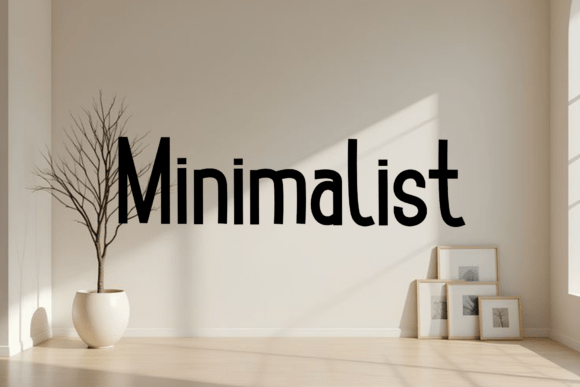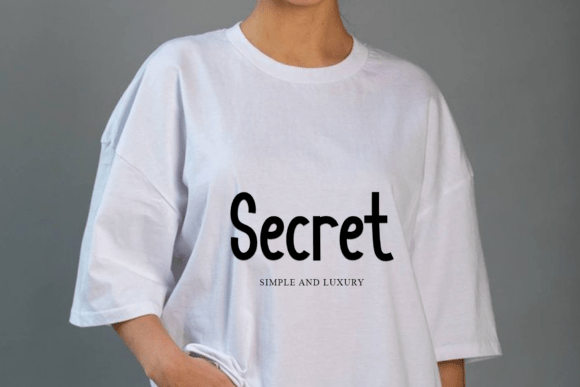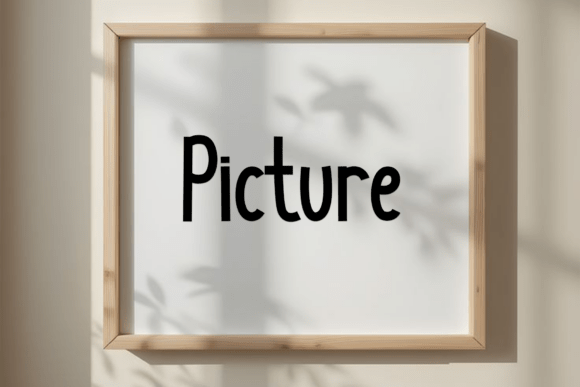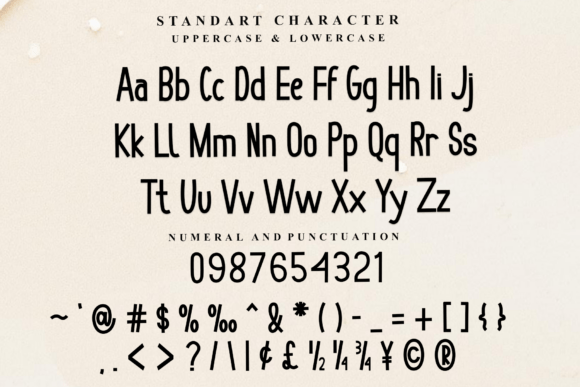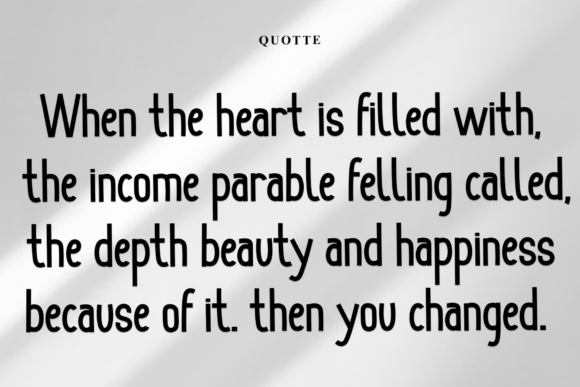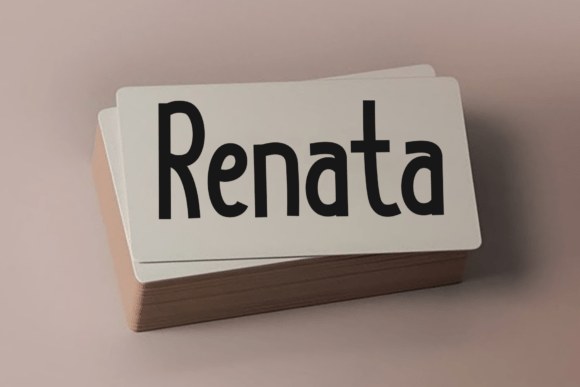
Introduction to Snappy Doodle Font
As a designer, there’s nothing quite like the thrill of bringing a creative project to life. You’re browsing through a font library, searching for the perfect match to convey the tone and personality of your design. And then, you stumble upon it – the one font that makes everything click. For many, that font is the Snappy Doodle Font, a delightful and charming typeface that adds a touch of warmth and friendliness to any design.
With its round, playful strokes and hand-drawn aesthetic, the Snappy Doodle Font is the perfect addition to any design resource. Whether you’re working on a free download or a paid project, this font is sure to bring a smile to your client’s face. Its versatility and high quality make it an invaluable asset for designers, allowing them to create high-quality designs with ease.
Key Features of Snappy Doodle Font
- Unique and playful design perfect for creative projects, such as children’s books, party invitations, and educational materials.
- Perfect for adding a touch of whimsy and personality to your design projects, from posters and flyers to social media graphics and more.
Honest Review: Snappy Doodle Font
I recently had the chance to work with the Snappy Doodle Font, and I must say it’s a unique and quirky addition to any design project. This font is perfect for those who want to add a touch of whimsy and playfulness to their creative work.
- ✨ High quality and crisp lettering, making it perfect for use on a variety of design mediums.
- ✨ The transparent background option allows for seamless integration into any design project, whether it’s a digital or print-based application.
- ⚠️ Limited font styles and variations, which may not be ideal for designers looking for a more extensive range of options.
Overall, the Snappy Doodle Font is a fun and creative addition to any design project. While it may have some limitations, its unique charm and high quality make it a worthwhile resource for designers looking to add a touch of personality to their work.
The Snappy Doodle Font is perfect for various design projects, including invitations, social media graphics, and presentations. Its unique design and high-quality resolution make it a valuable design resource.